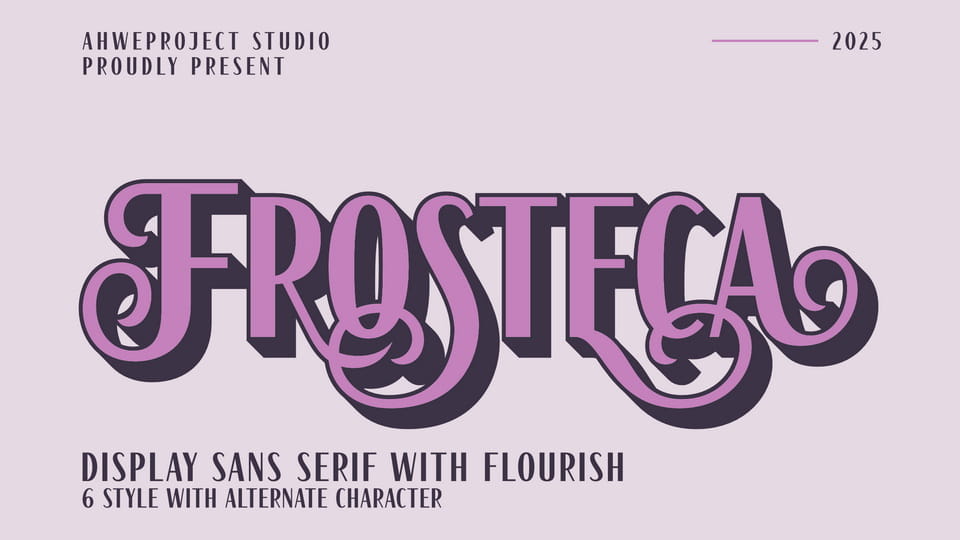
Download Frosteca font, a beautifully crafted display sans serif typeface that blends boldness with artistic elegance. Designed to capture attention, this font is perfect for projects that demand both impact and style.